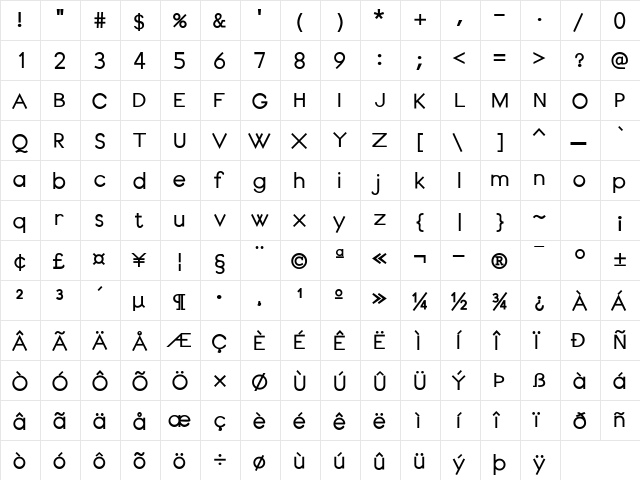
CadetSSK Bold
Design Context for CadetSSK Typeface
CadetSSK offers clean, dependable letterforms without strong stylistic allegiance, making it a practical choice for designers who need flexibility. The heavy weight commands attention and anchors typographic hierarchies.